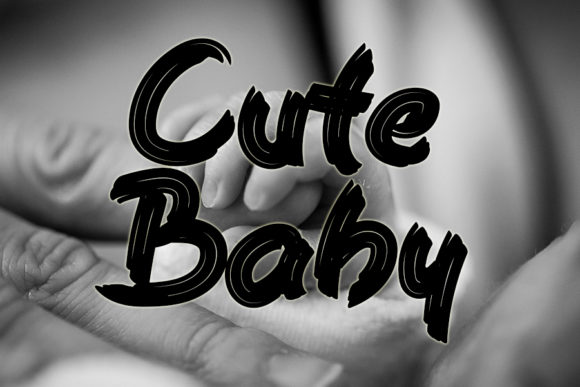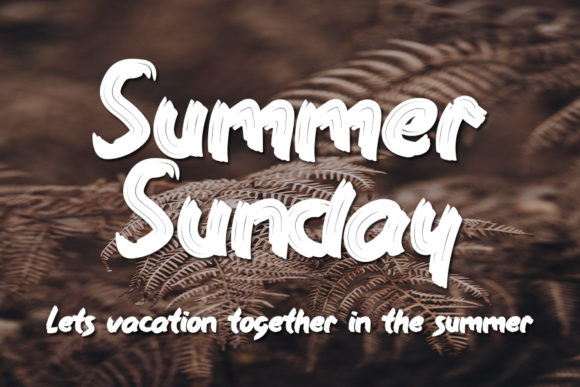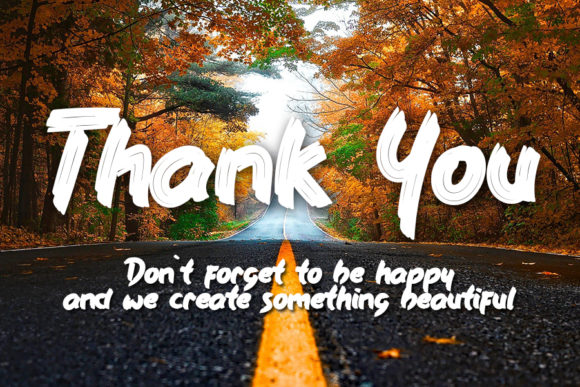
Unleash Your Creativity with Black Brush Font: The Ultimate Guide
Are you a designer, crafter, or digital artist looking for a font that can add a touch of elegance and sophistication to your projects? Look no further than the Black Brush Font! This trendy brushed display font is perfect for a variety of creative endeavors, from crafting and digital designing to presentations and greeting cards making.
What is Black Brush Font?
Black Brush Font is a stylish and modern font that mimics the look of hand-brushed lettering. Its unique, fluid strokes and bold lines give it a distinctive appearance that’s sure to grab attention. Whether you’re creating a logo, poster, or social media graphic, this font is sure to make your text stand out.
Features of Black Brush Font
- Trendy and Modern Design: Black Brush Font boasts a fresh and contemporary design that’s perfect for projects that require a modern touch.
- Hand-Brused Look: The font’s hand-brushed appearance gives it a unique, organic feel that’s perfect for crafty and DIY projects.
- Bold and Eye-Catching: The font’s bold lines and fluid strokes make it perfect for headlines, titles, and other display text.
- Multipurpose: Black Brush Font can be used for a wide range of projects, from digital designing and crafting to presentations and greeting cards making.
Uses of Black Brush Font
Black Brush Font is an incredibly versatile font that can be used for a variety of creative projects. Here are some ideas to get you started:
- Crafting: Use Black Brush Font to add a personal touch to your scrapbooking, journaling, and other crafty projects.
- Digital Designing: This font is perfect for creating social media graphics, blog headers, and other digital assets.
- Presentations: Add a touch of elegance to your presentations with Black Brush Font’s bold and eye-catching lettering.
- Greeting Cards Making: Create beautiful and personalized greeting cards with this font’s unique and stylish lettering.
Tips for Using Black Brush Font
Here are some tips to help you get the most out of Black Brush Font:
- Use it for Headlines and Titles: Black Brush Font is perfect for headlines and titles, where its bold and eye-catching lettering can really shine.
- Experiment with Colors: Try pairing Black Brush Font with different colors to create unique and eye-catching combinations.
- Mix and Match with Other Fonts: Don’t be afraid to combine Black Brush Font with other fonts to create interesting and dynamic text combinations.
Black Brush Font is a trendy and versatile font that’s perfect for designers, crafters, and digital artists. Its unique, hand-brushed appearance and bold lines make it perfect for a wide range of creative projects. Whether you’re creating a logo, poster, or social media graphic, this font is sure to add a touch of elegance and sophistication. So why wait? Download Black Brush Font today and unleash your creativity!